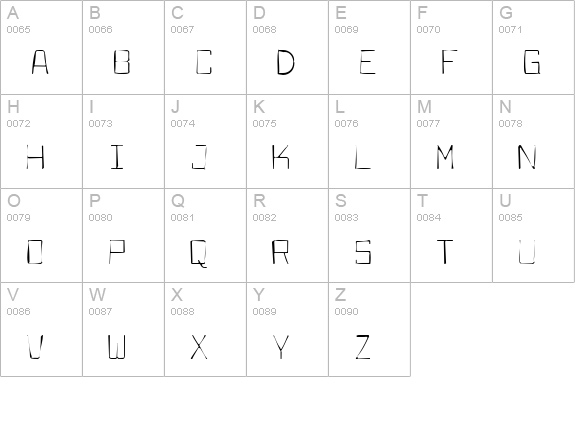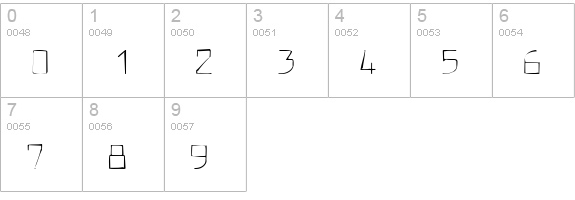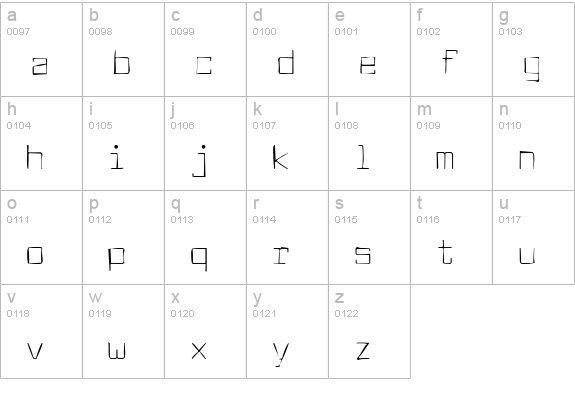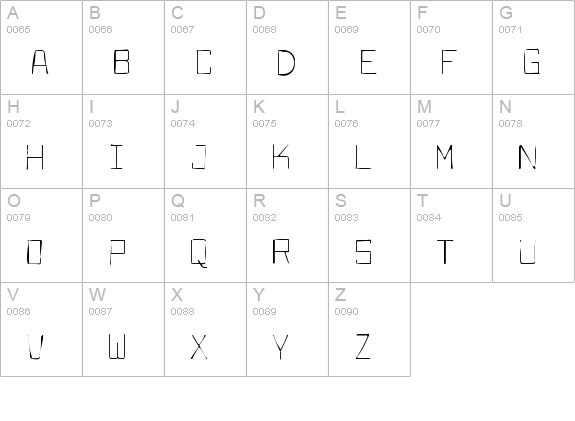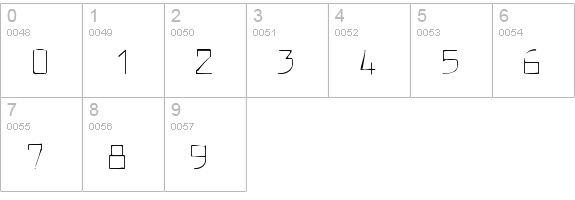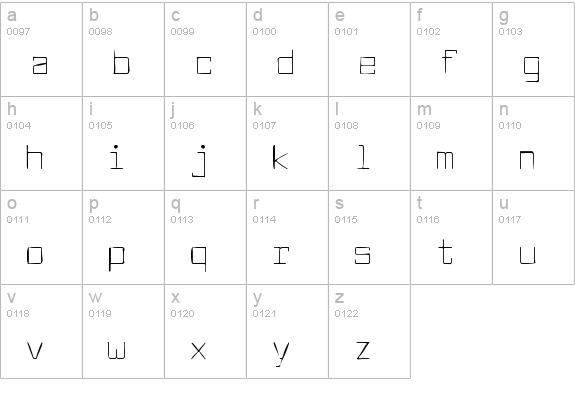
Larabiefont Gaunt Font Details
The Larabiefont Gaunt font is a stunning and versatile typeface that exudes elegance and sophistication. With its sleek lines and modern design, this font is perfect for a wide range of projects, from branding and advertising to invitations and social media graphics. The Larabiefont Gaunt font is available for free download at FontsMarket.com, making it easily accessible for designers and creatives looking to add a touch of class to their work. Whether you're designing a logo for a high-end boutique or creating a stylish poster for an event, the Larabiefont Gaunt font is sure to elevate your design and impress your audience. Download it today and unleash your creativity with this beautiful and free font.